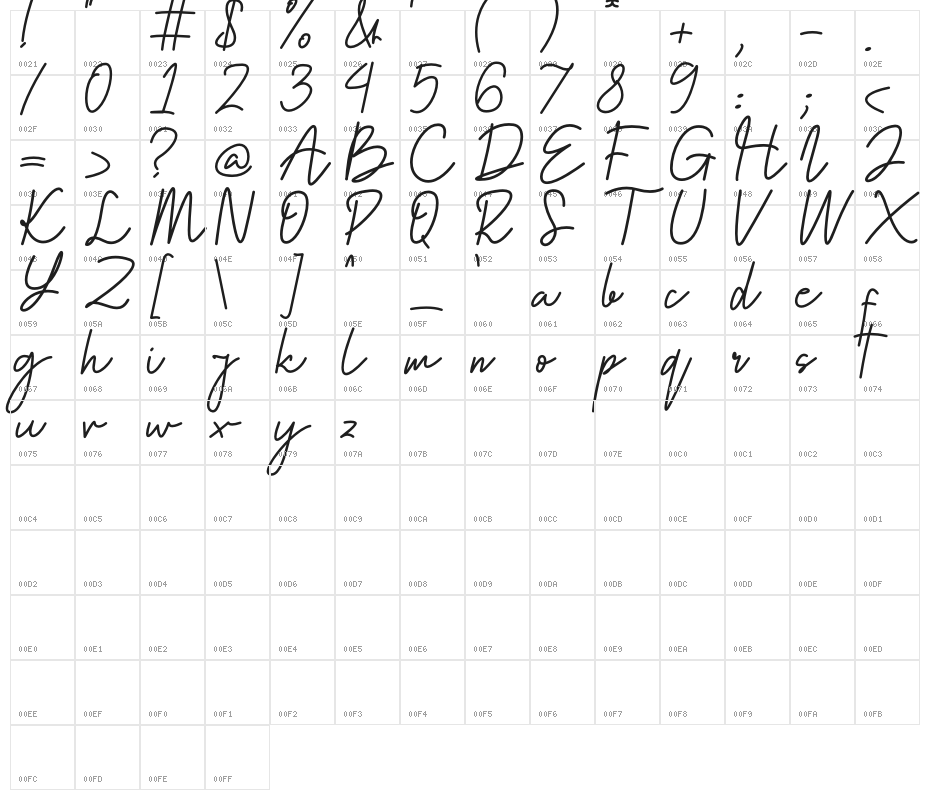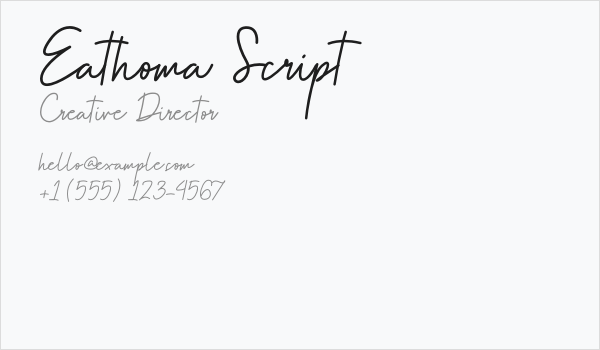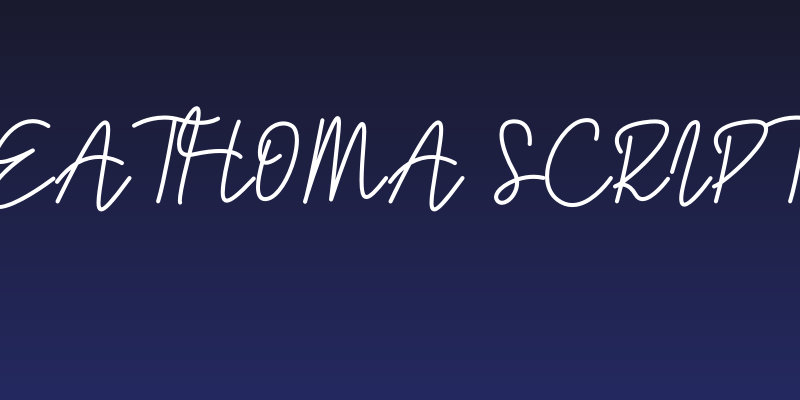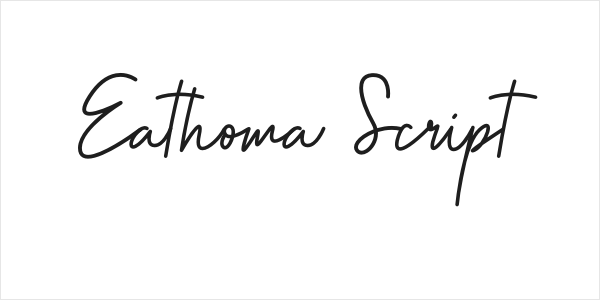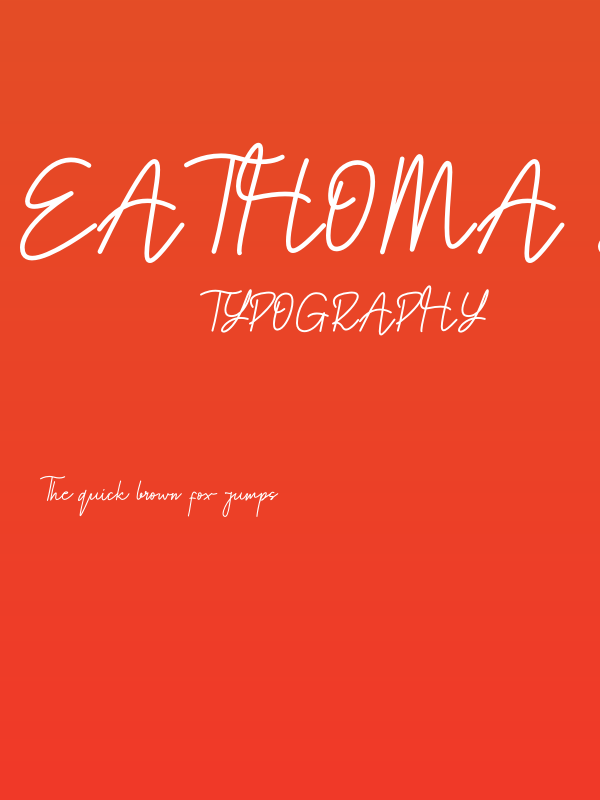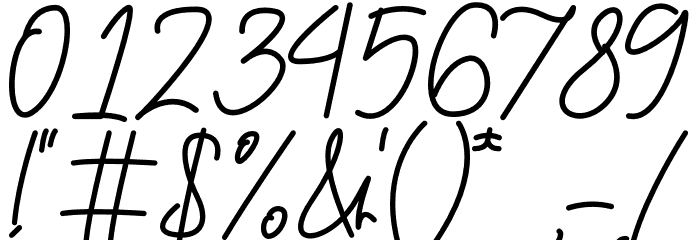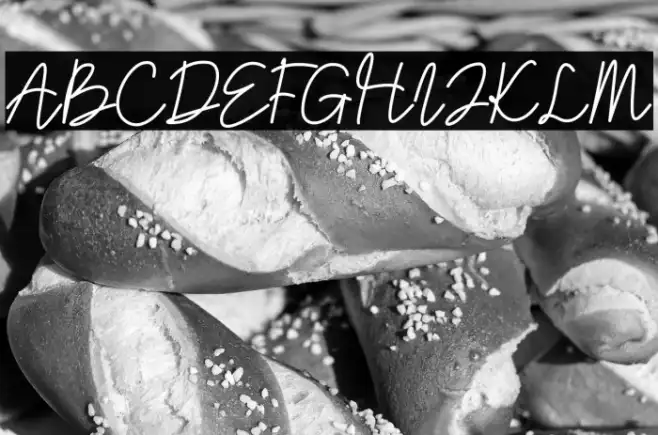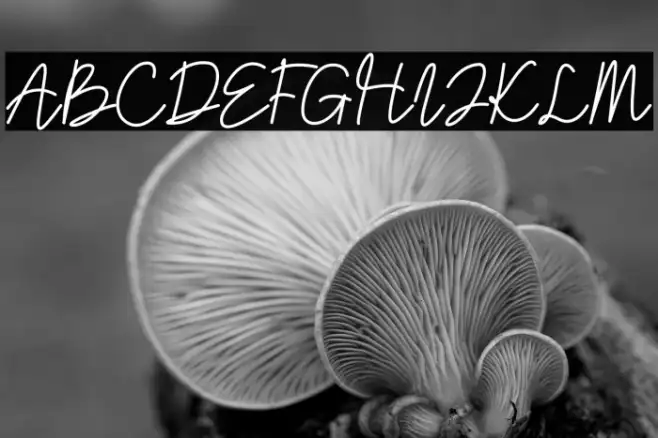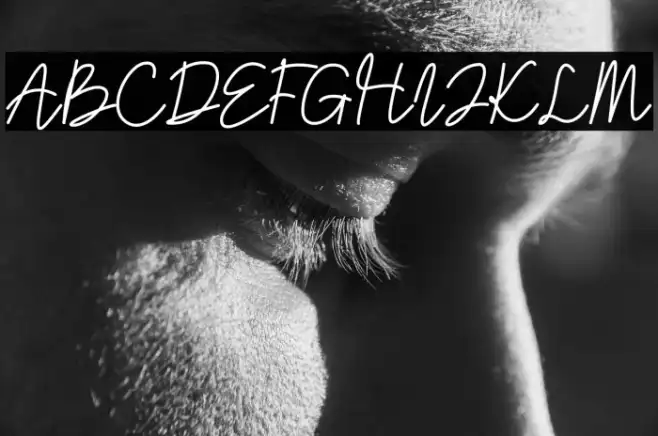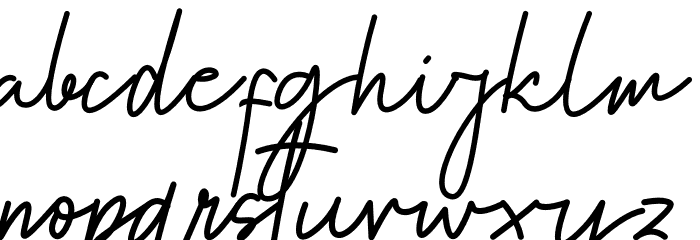
Eathoma Script Font
Eathoma Script Description
This script font exudes a casual elegance with its fluid, handwritten style. The letters are connected smoothly, giving it a natural and personal touch. The uppercase characters are slightly more formal, while the lowercase letters maintain a consistent flow, enhancing readability. The numbers and special characters are crafted to match the overall aesthetic, ensuring a cohesive appearance. This font is perfect for projects that require a personal, yet sophisticated feel, such as invitations, greeting cards, or branding materials. Its versatility allows it to be used in both digital and print formats, making it a valuable addition to any designer's toolkit.
| Overall Style | Casual, Elegant |
| Proposed Projects | Ideal for invitations, greeting cards, branding, and personal projects. |